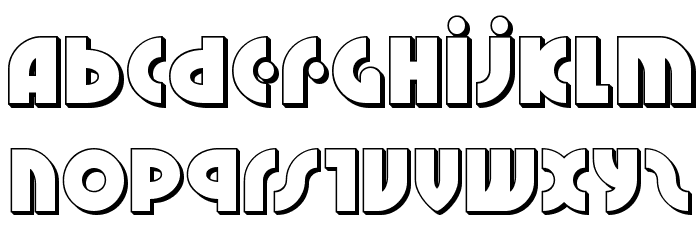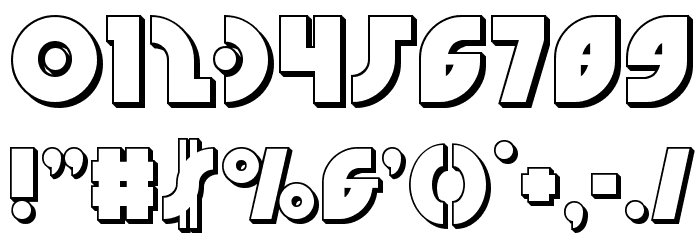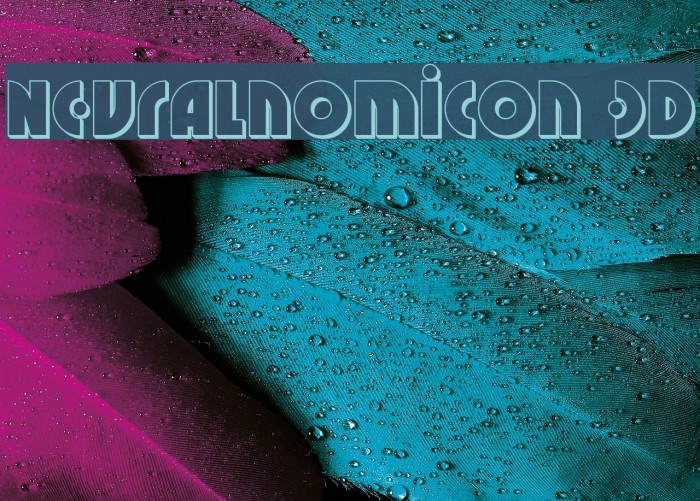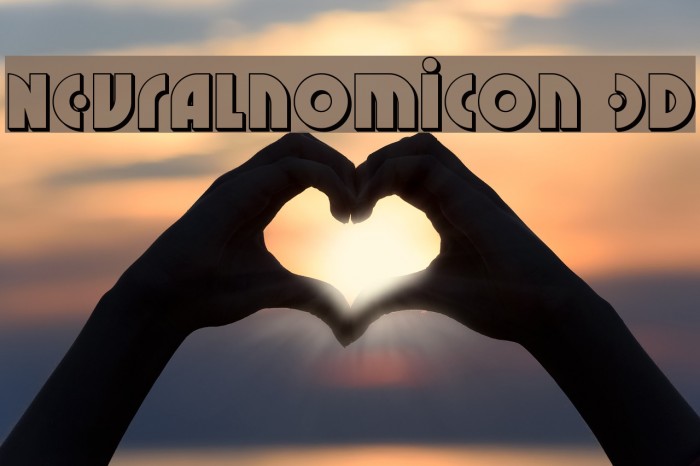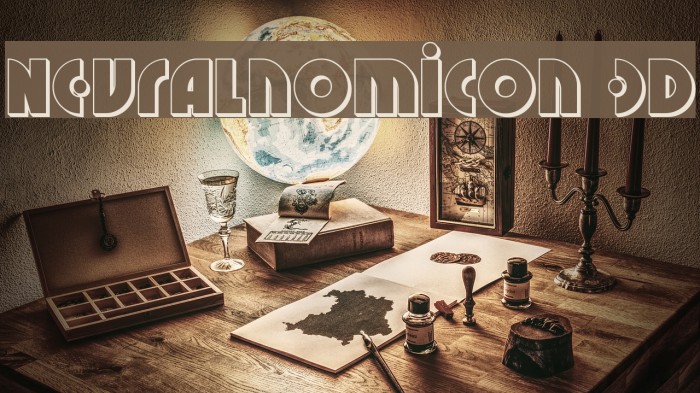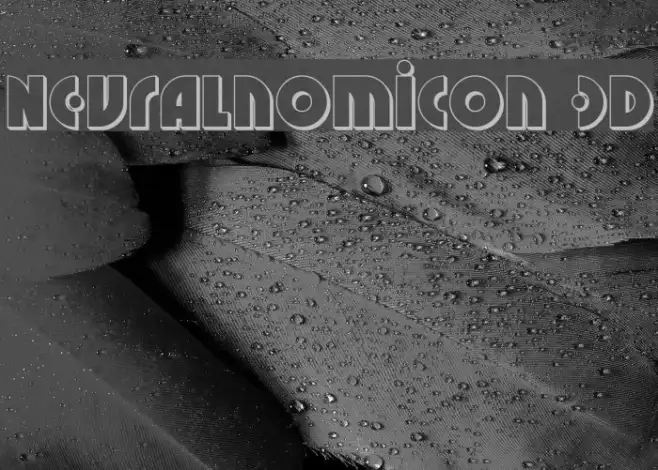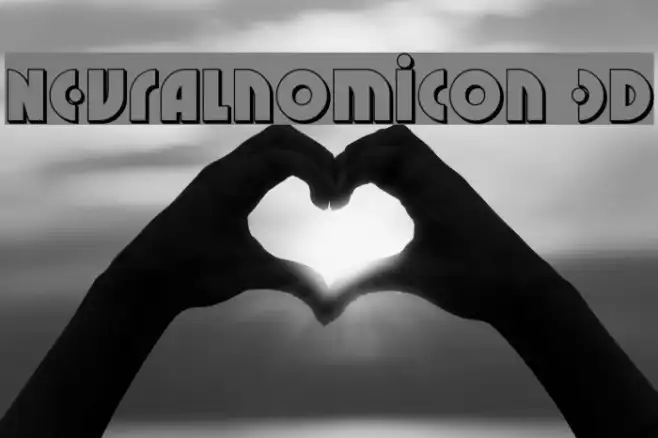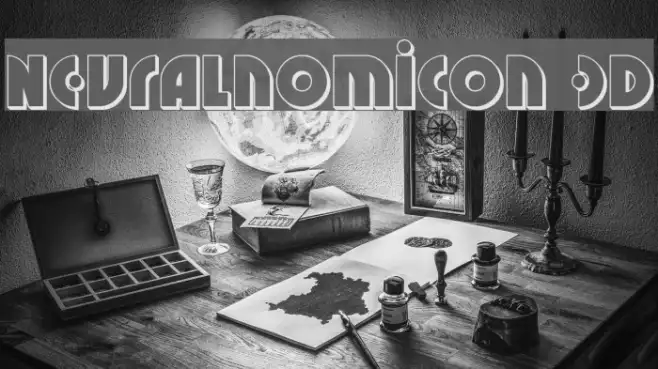
Neuralnomicon 3D Font
This font features a bold, geometric design with a distinct 3D effect. Each character is crafted with a strong outline that gives it a shadowed appearance, enhancing its dimensionality. The letters are constructed with a combination of straight lines and curves, creating a modern and futuristic look. The uppercase and lowercase letters maintain a consistent style, while the numbers and special characters complement the overall aesthetic. This font's unique style makes it stand out, ideal for projects that require a bold statement.
A bold, geometric font with a 3D effect and strong outlines.
- Proposed Projects: Ideal for posters, logos, video game graphics, and any project needing a futuristic or standout design.